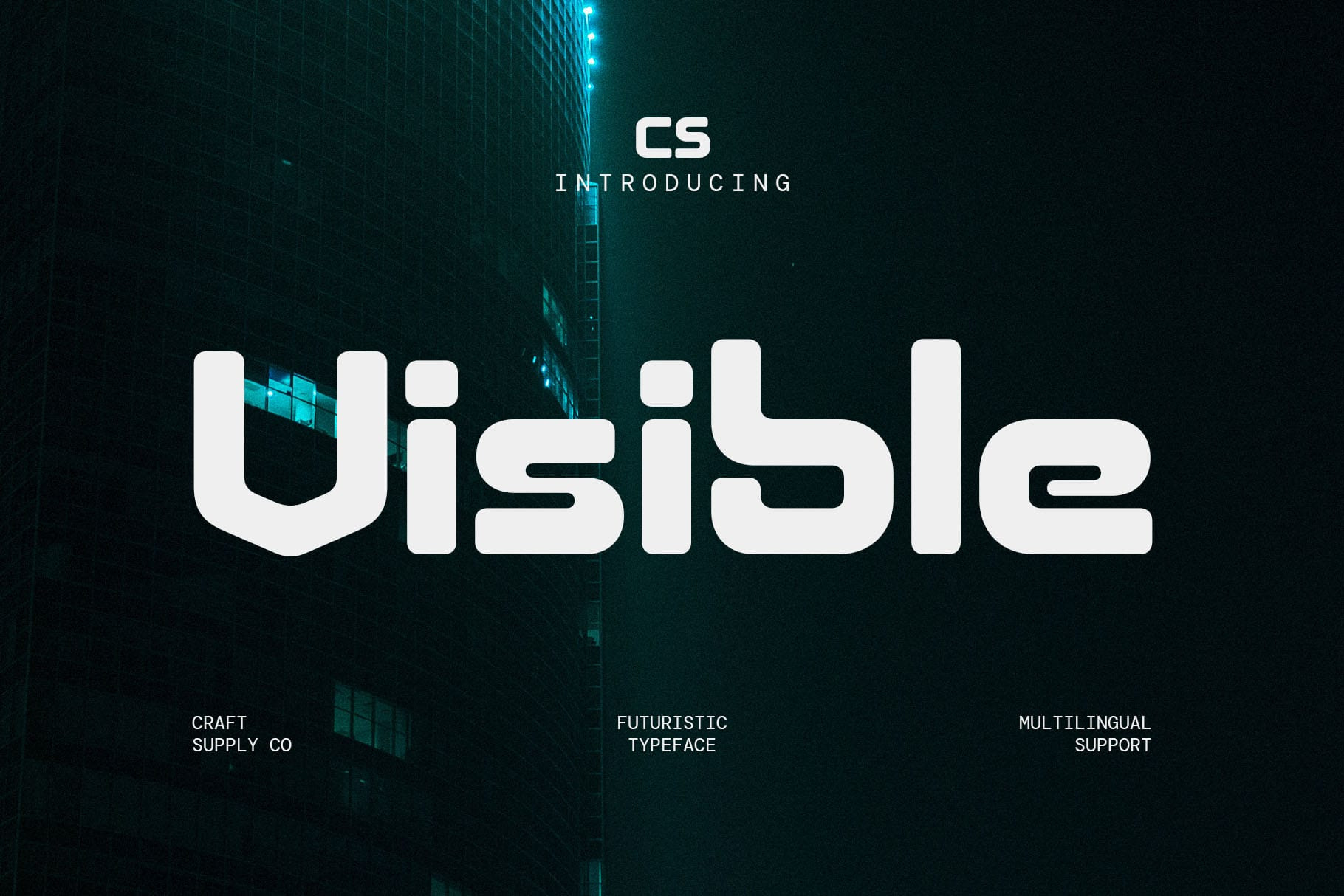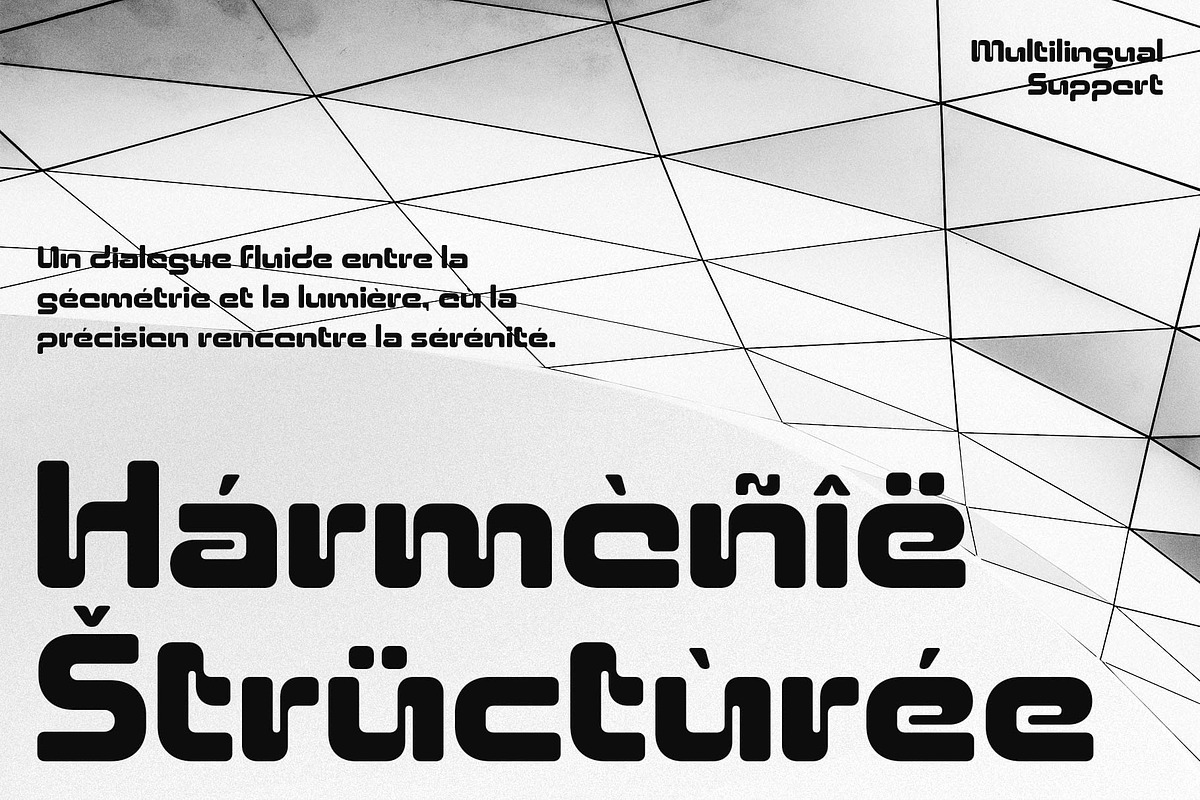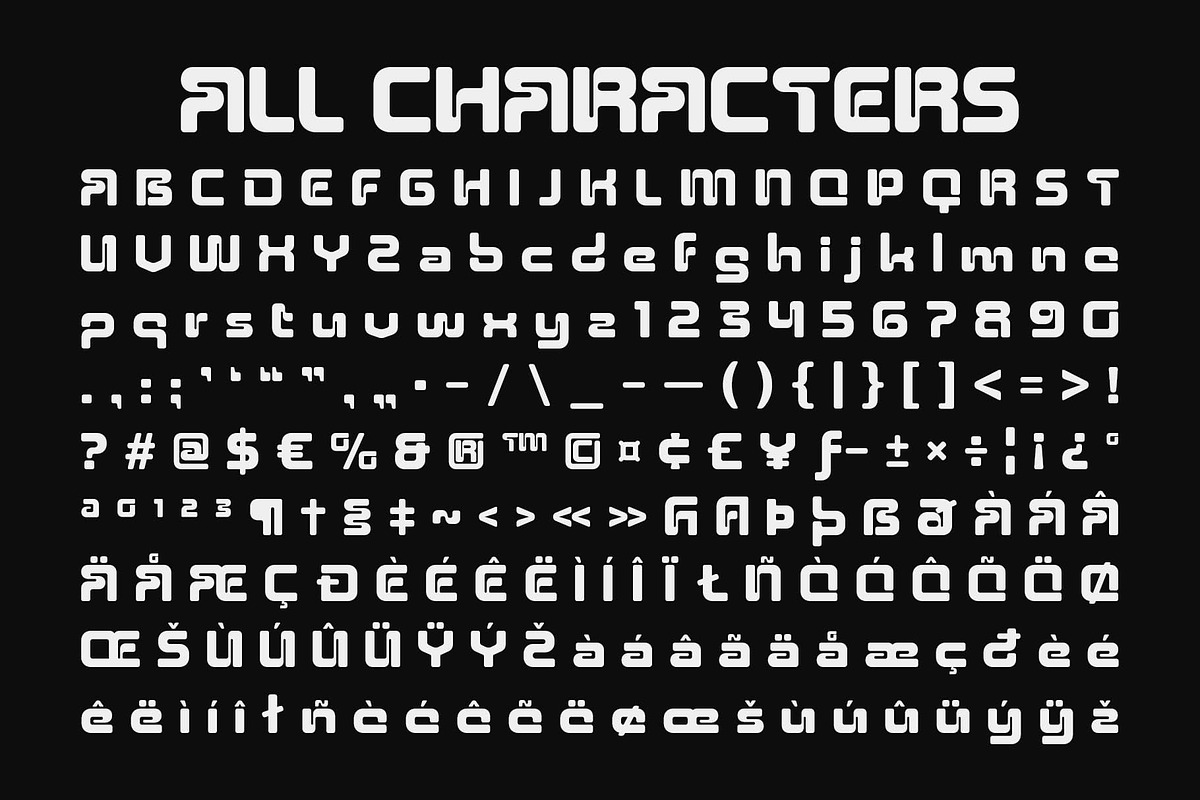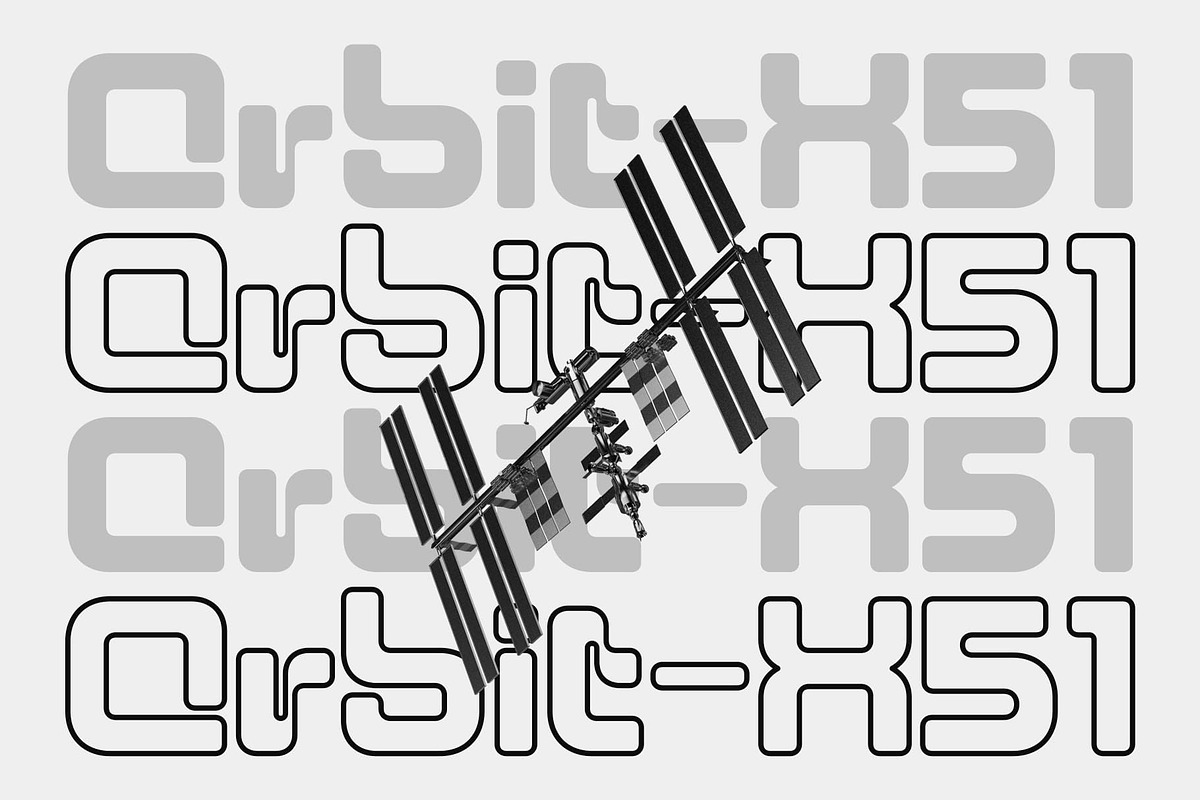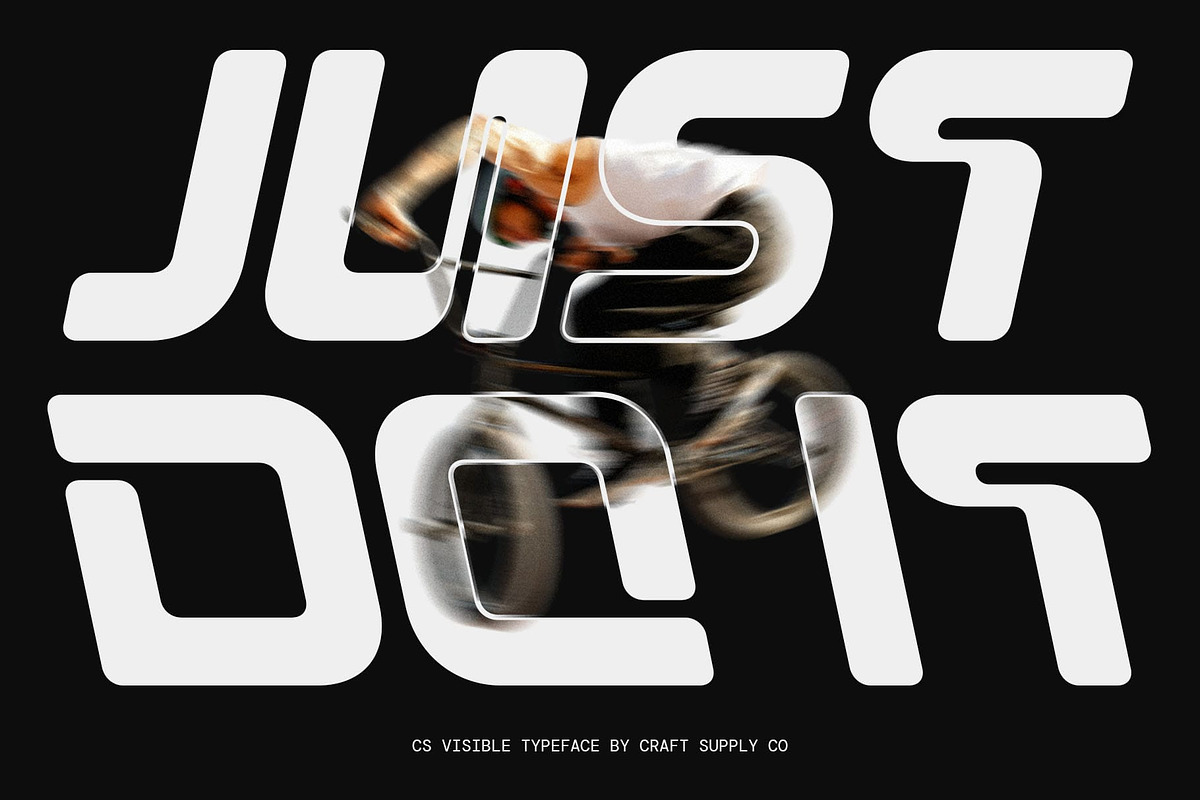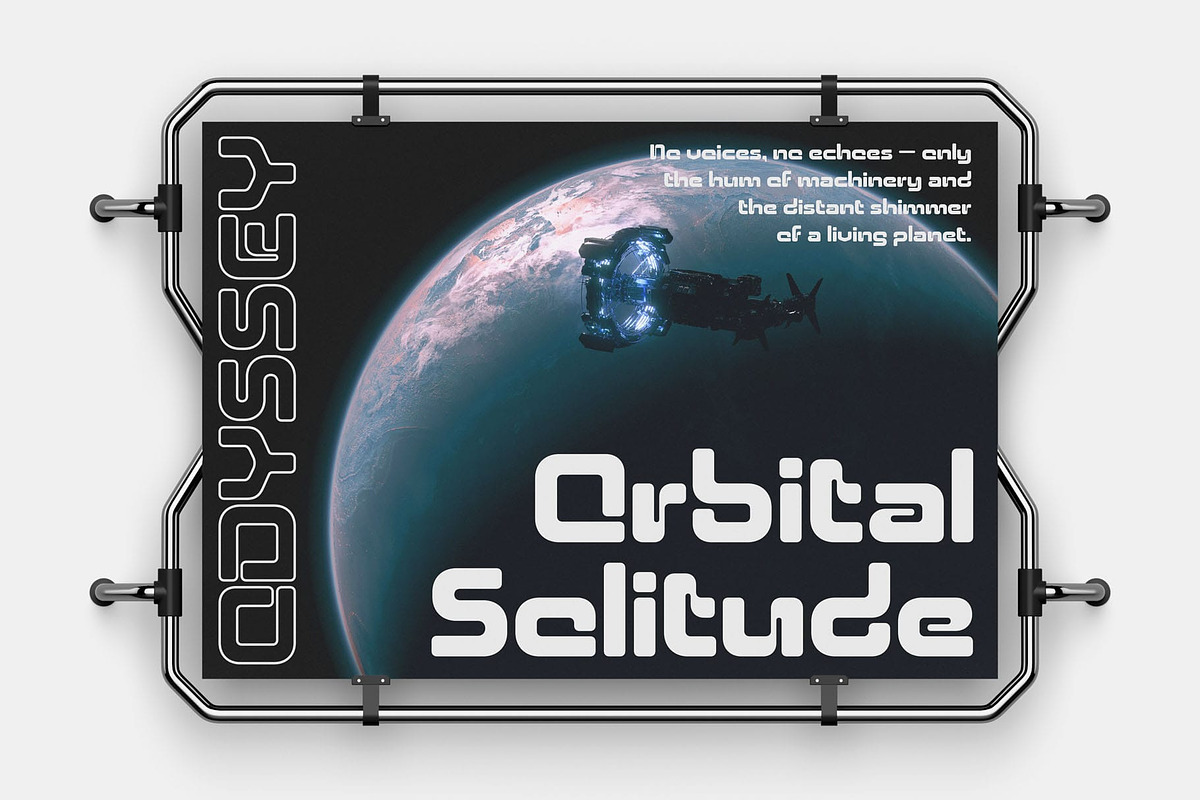
CS Visible – Futuristic Font
CS Visible – Techno Sans Serif with Futuristic Precision
Modern Sans Serif for Bold Visual Impact This is a techno-inspired sans serif font that embodies strength, clarity, and modern energy. Designed with sleek geometry and a confident structure, it delivers a futuristic impression that stands out in any visual context. Every curve and edge is crafted to reflect innovation and precision making it ideal for contemporary digital or branding environments.
Flowing Shapes for a Futuristic Look This font’s smooth, flowing shapes bring a sense of movement and fluidity to its clean, industrial design. The balance between sharp lines and gentle curves gives this font a distinctly modern and futuristic appeal, perfect for projects that aim to express progress, technology, and creative forward-thinking.
Designed for Clarity and Power This font’s bold proportions and well-defined forms ensure excellent readability even at large sizes. Its structural consistency and geometric refinement make it a powerful choice for logos, posters, and branding materials that demand a professional and assertive presence.
Versatile for Contemporary Applications From digital media to advertising and futuristic product design, this font adapts effortlessly to a wide range of design uses. Whether you’re building a brand identity, designing an impactful headline, or creating a tech-driven aesthetic, this font brings modern confidence and visual precision to your project.
- CS Visible Regular
- CS Visible Italic
- CS Visible Reverse Italic